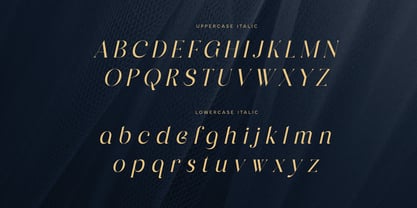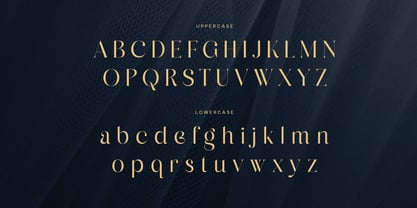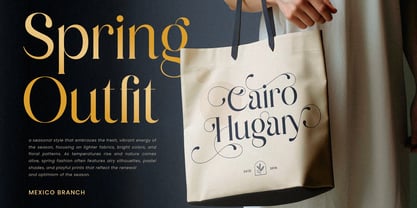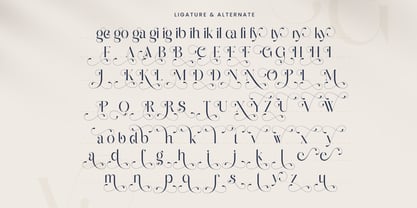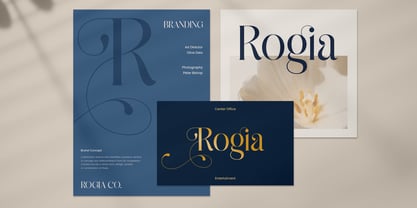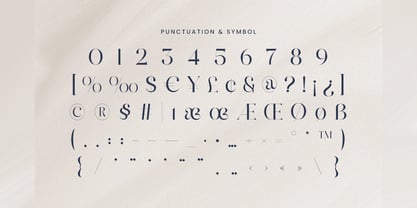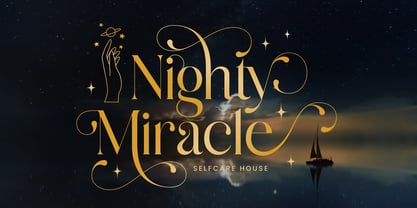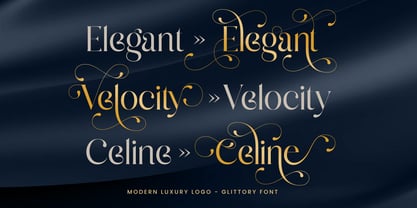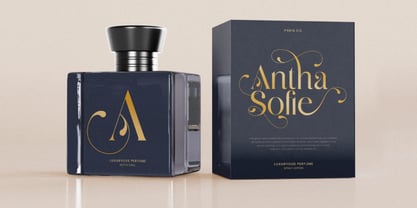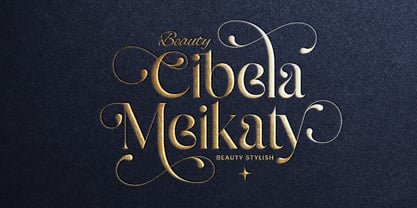
Glittory
by Sensatype Studio
The Glittory Font Family was designed by Zamroni Hamzah and published by Sensatype Studio. Glittory contains 2 styles and family package options. More about this family
Glittory - Lavish Luxury Font
Glittery is a lavish luxury logo font designed to elevate your high-end branding projects. Its elegant, sparkling details make it perfect for creating stunning logos, invitations, and premium packaging designs. The refined letterforms of Glittery add a sense of sophistication and opulence, ideal for fashion, jewelry, or any luxurious brand identity.
Inspired by the shimmering beauty of luxury, Glittery captures the essence of elegance with every curve. This font was crafted to give your designs a polished, upscale look, perfect for making your brand shine in a competitive market. Whether you're working on a high-end boutique or luxury service logo, Glittery is designed to leave a lasting impression.
With its lavish style and timeless appeal, Glittery is the ideal choice for those looking to add a touch of elegance and exclusivity to their designs. Bring your visions to life with Glittery’s exquisite details and luxurious finish.
Glittery Lavish Luxury Logo Font Features:
• Unique Ligature & Alternate Characters Ready
• Punctuation, Number, and Symbol
• Uppercase and Lowercase
• Multilingual Support
• Opentype Features